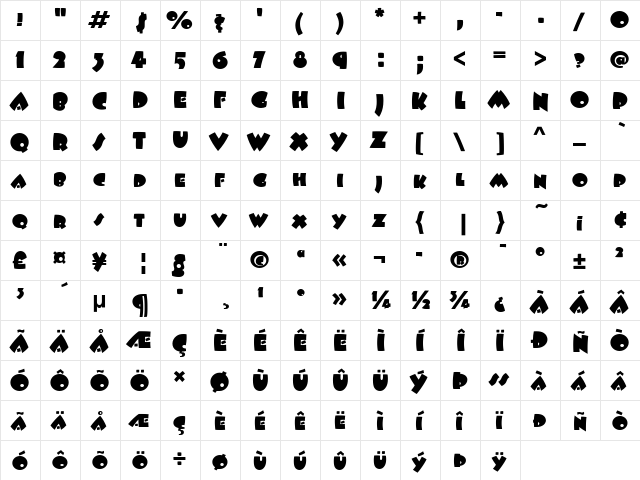
Beesknees ITC SC Regular
Design Context for Beesknees ITC SC Typeface
Beesknees ITC SC is a composed and adaptable typeface that performs quietly and consistently across a wide range of design contexts.